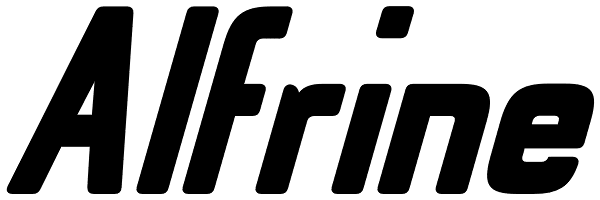
Alfrine
Alfrine is a gently rounded oblique Sans-Serif typeface, ideal for banner text with a simple clear outline and a sense of motion and speed. Two typefaces are offered-regular and diagonally shaded forms.
Alfrine
Alfrine Shaded